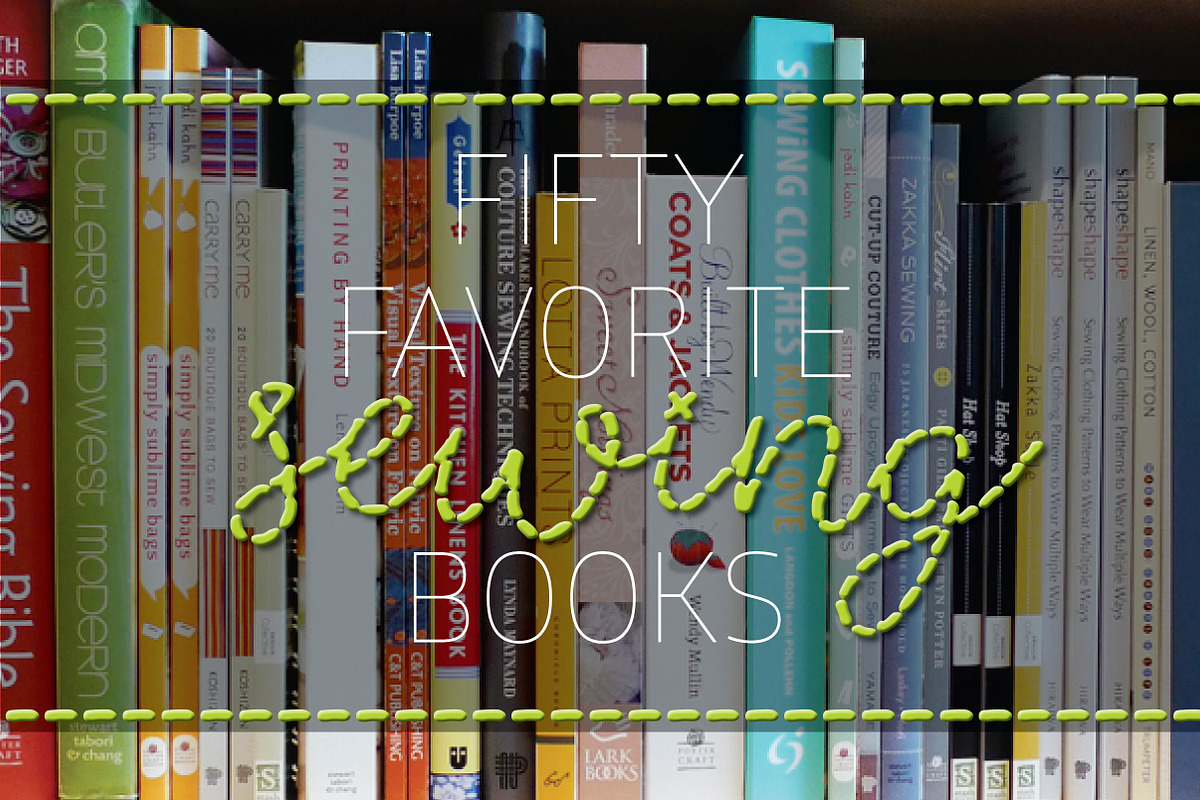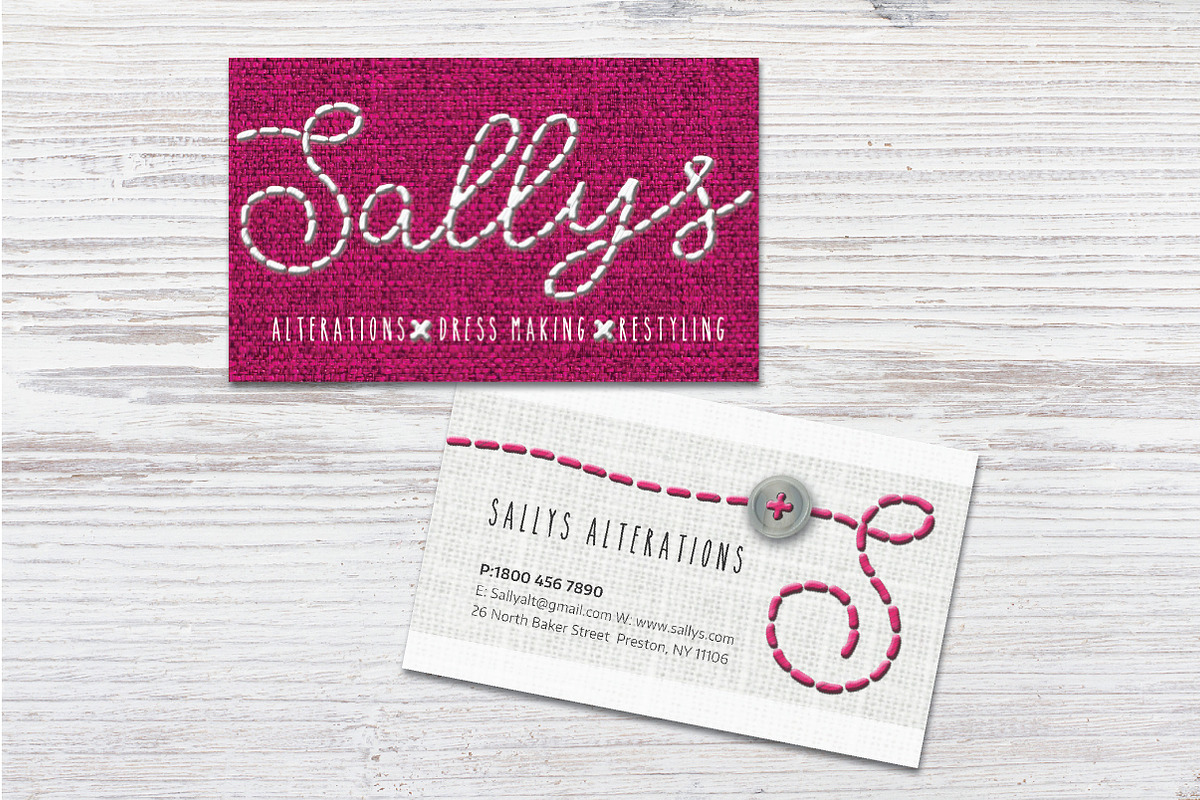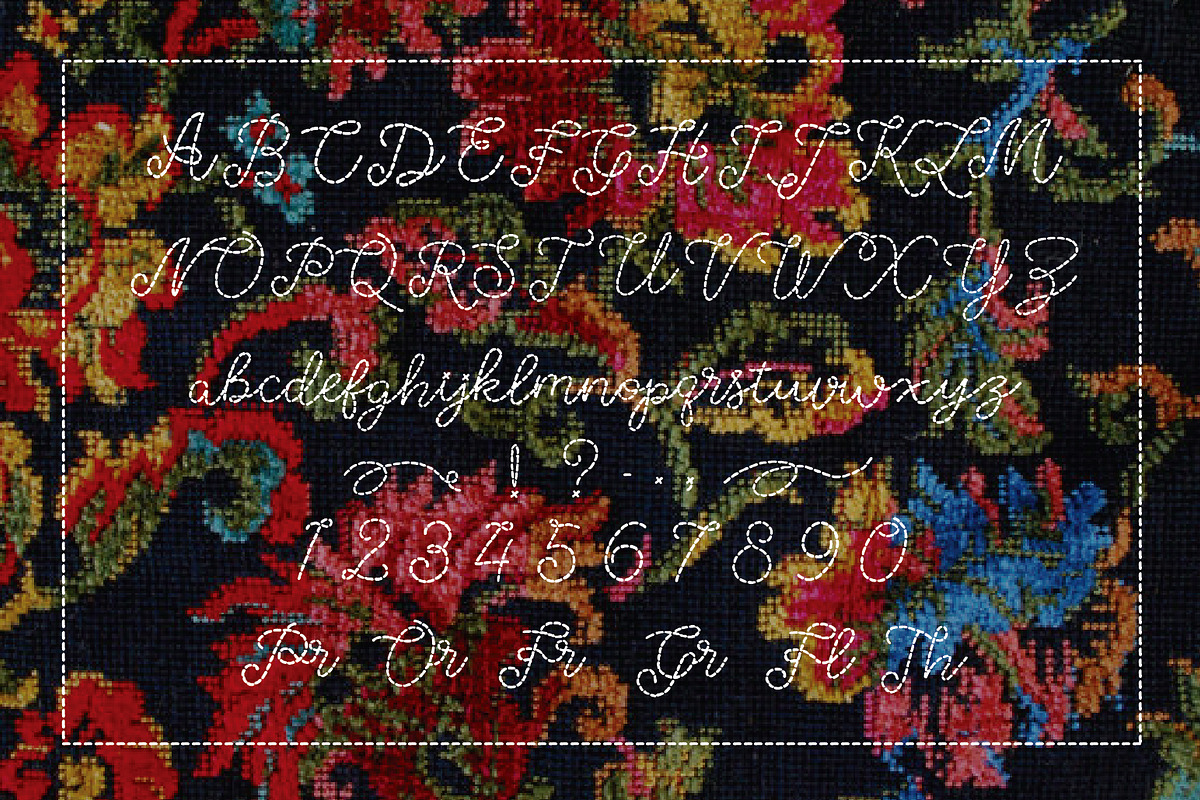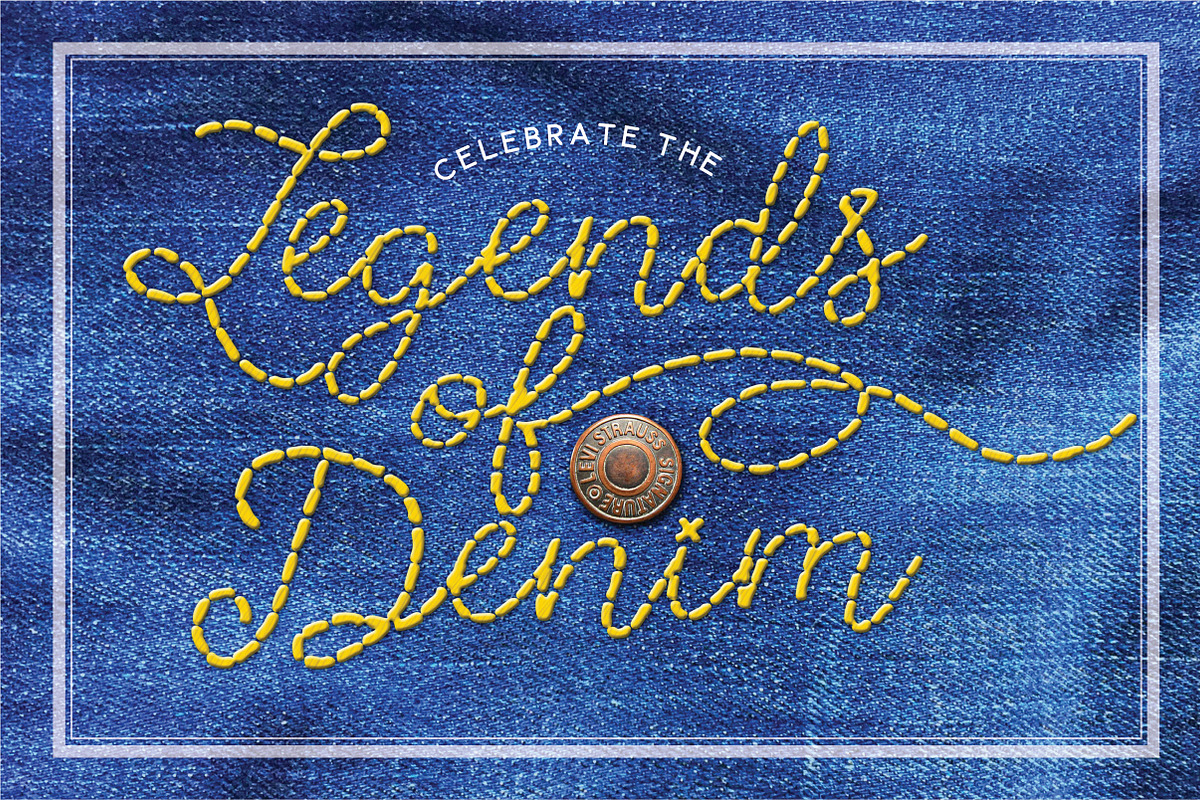
Stitched hand written font
Stitched hand written font by Phil Marquet is a font selected for branding, posters, packaging, typography.
Why Stitched hand written font is worth a look
Stitched hand written font by Phil Marquet fits naturally into Branding, posters, packaging, typography.